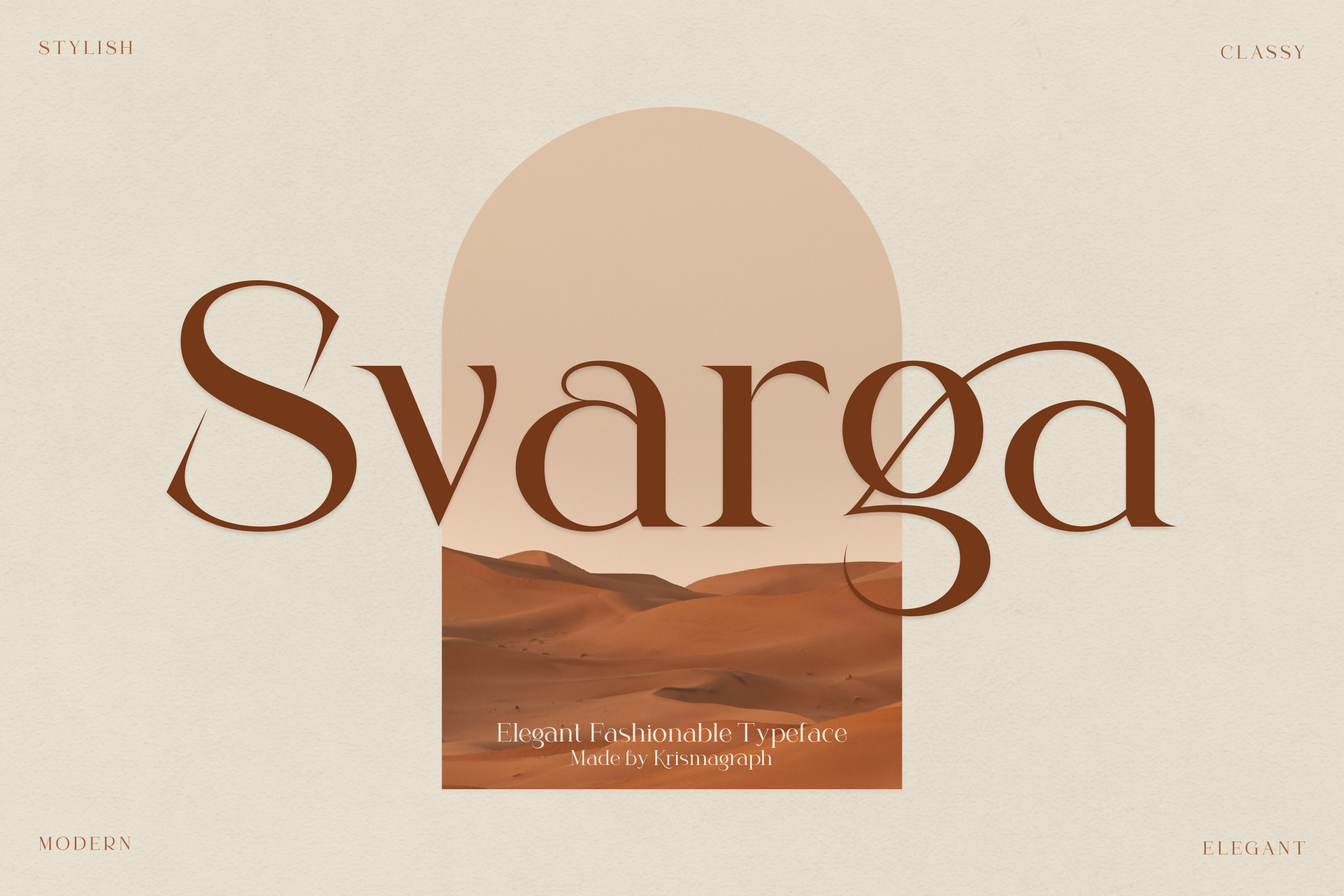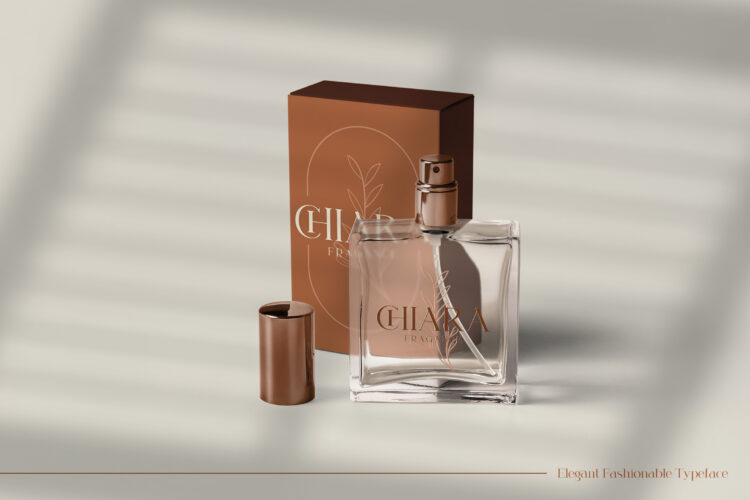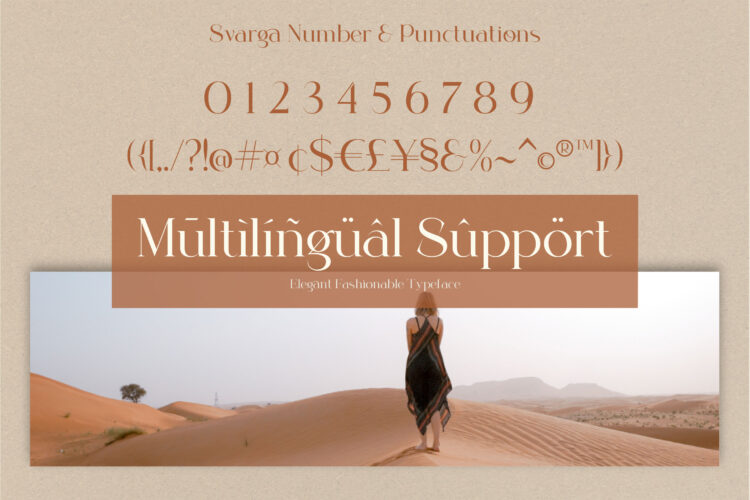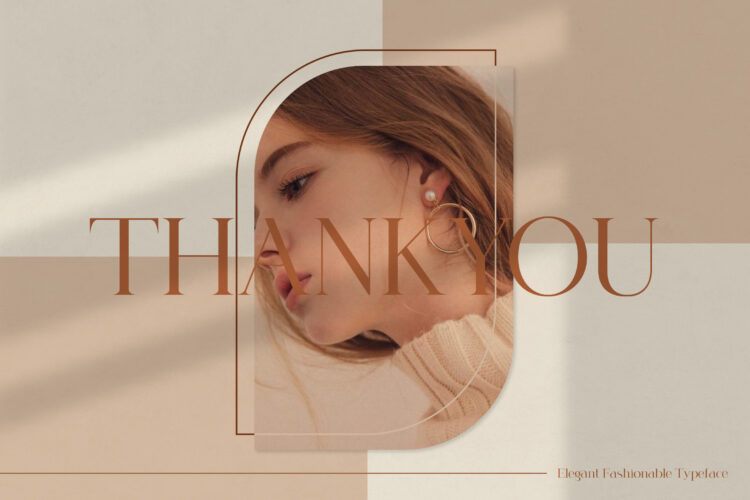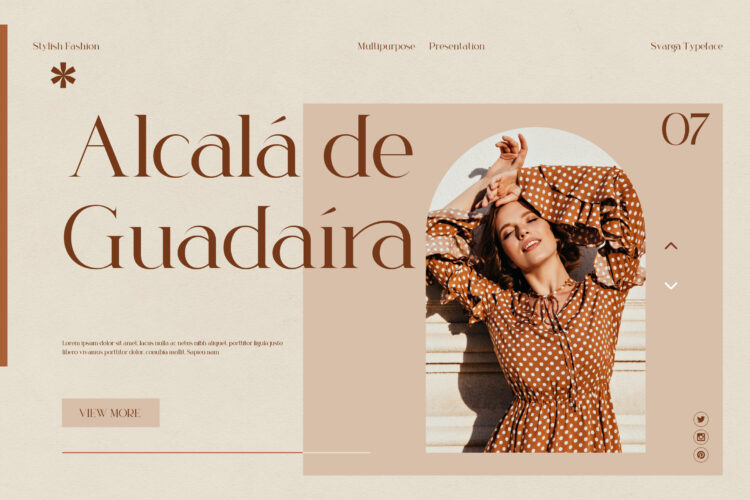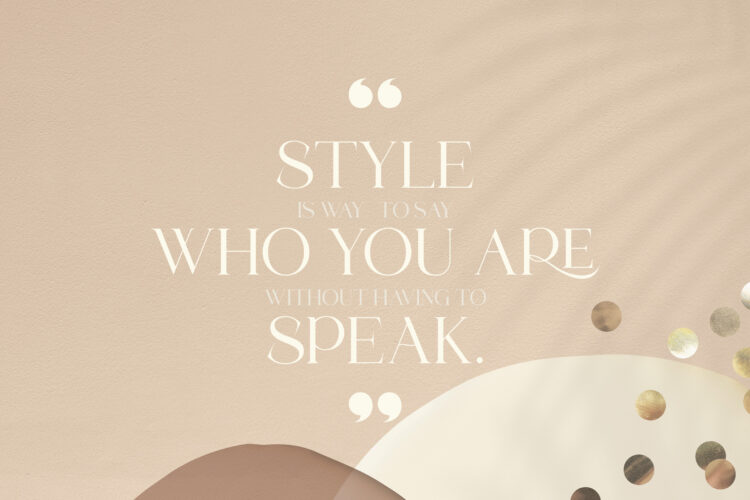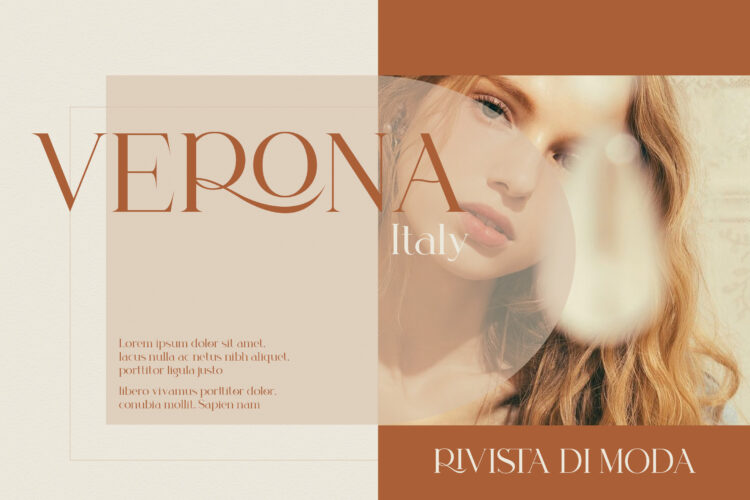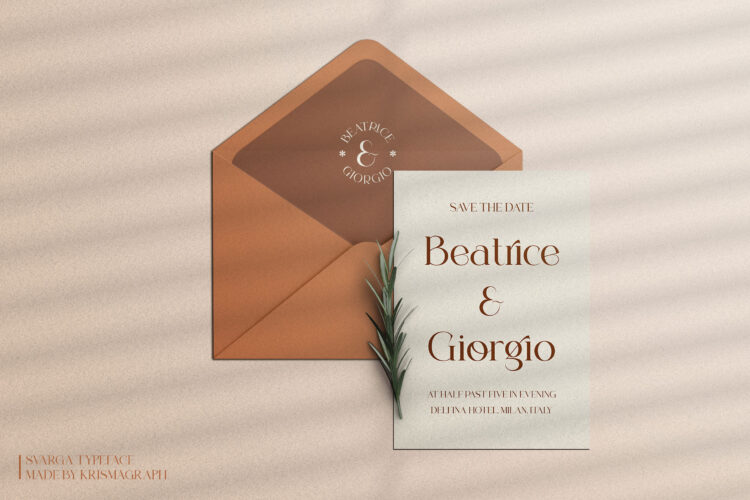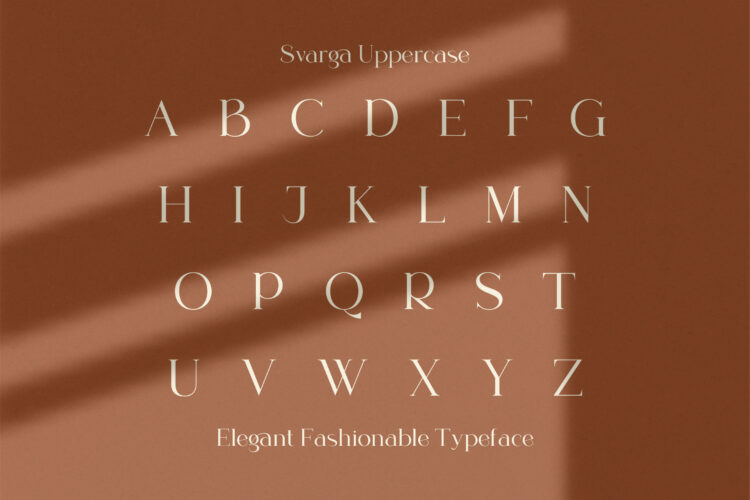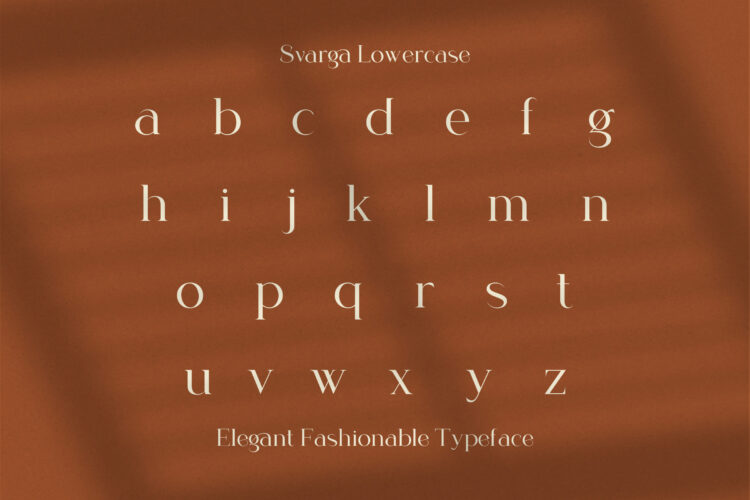
Introducing our new “Svarga”, Elegant Fashionable Serif with Unique, Classy and Stylish. Svarga Typeface is a classy and elegant serif typeface – This font is both modern and nostalgic and works great for logos, magazine, social media. Already matched up and ready to be used together for your next design! For those of you who are needing a touch of elegant, stylish, classy, chic and modernity for your designs, this font was created for you!
Svarga Features :
Ligatures
Multilanguage
Alternates
Svarga | Elegant Fashionable Serif